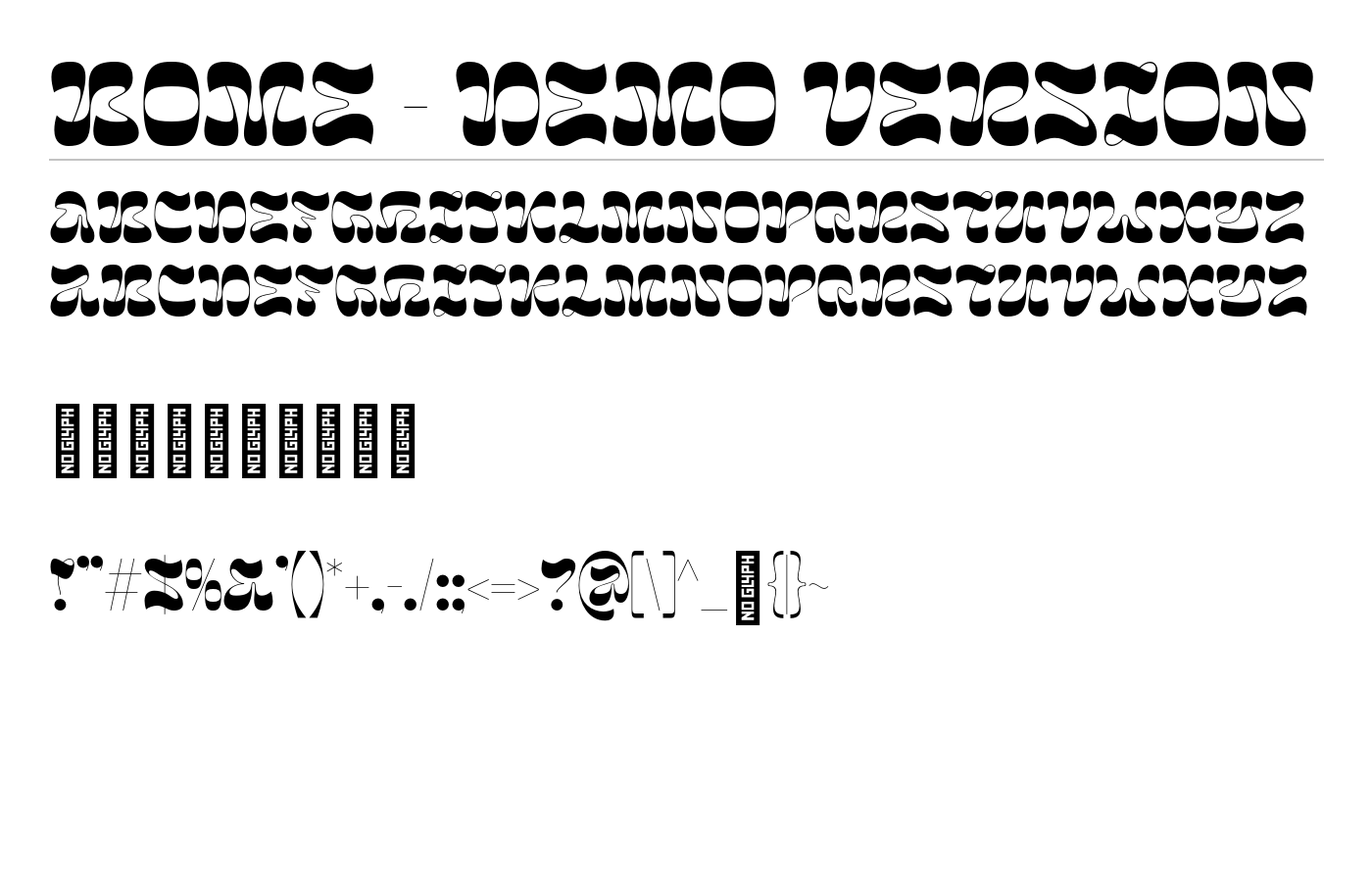
Bome is a bold, playful display font with a unique, abstract design that features heavy, rounded strokes and quirky shapes, giving it a modern and artistic vibe. Its unusual letterforms and strong visual impact make it ideal for creative branding, posters, and eye-catching headlines where a distinctive, fun personality is desired. This font works best in large sizes as an attention-grabbing statement rather than for body text.
Bome - Demo Version Font
About Bome - Demo Version Font
| Designer | Sigit Dwipa Raharjo |